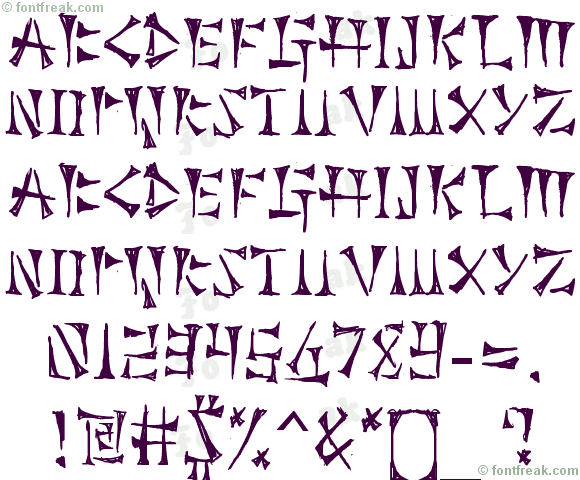
Cuneiforme
About Cuneiforme
Cuneiforme, designed by Juan Casco in 2010, is a striking display font that draws inspiration from ancient cuneiform writing. This unique typeface features a distinctive style characterized by its angular forms and sharp edges, making it a standout choice for creative projects. The font exhibits a moderate stroke weight with minimal contrast, giving it a bold and commanding presence. The spacing is tight, enhancing the compactness of the characters, while the decorative elements—such as the pointed serifs and stylized letterforms—contribute to its ancient aesthetic.
Ideal for use cases like movie posters, art exhibitions, and themed events, Cuneiforme adds a touch of historical intrigue to any design. Its unique characteristics make it particularly suited for projects that require a sense of the mysterious or archaic, such as fantasy novels or gaming graphics. Small business owners looking to create a memorable brand identity will find this font effective for eye-catching signage or promotional materials that tell a story. Graphic designers and content creators seeking to evoke a sense of the ancient world in their work will appreciate the versatility and distinctive flair that Cuneiforme offers.